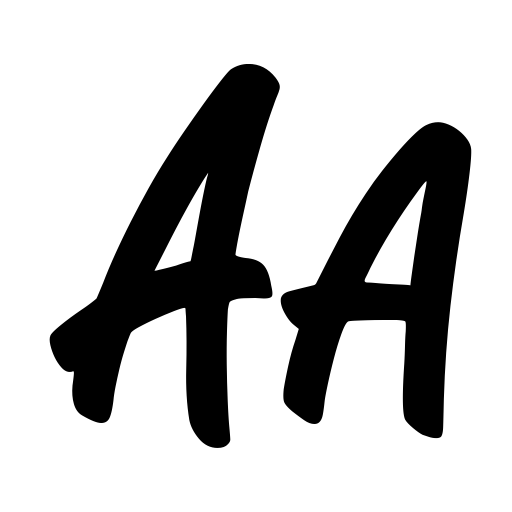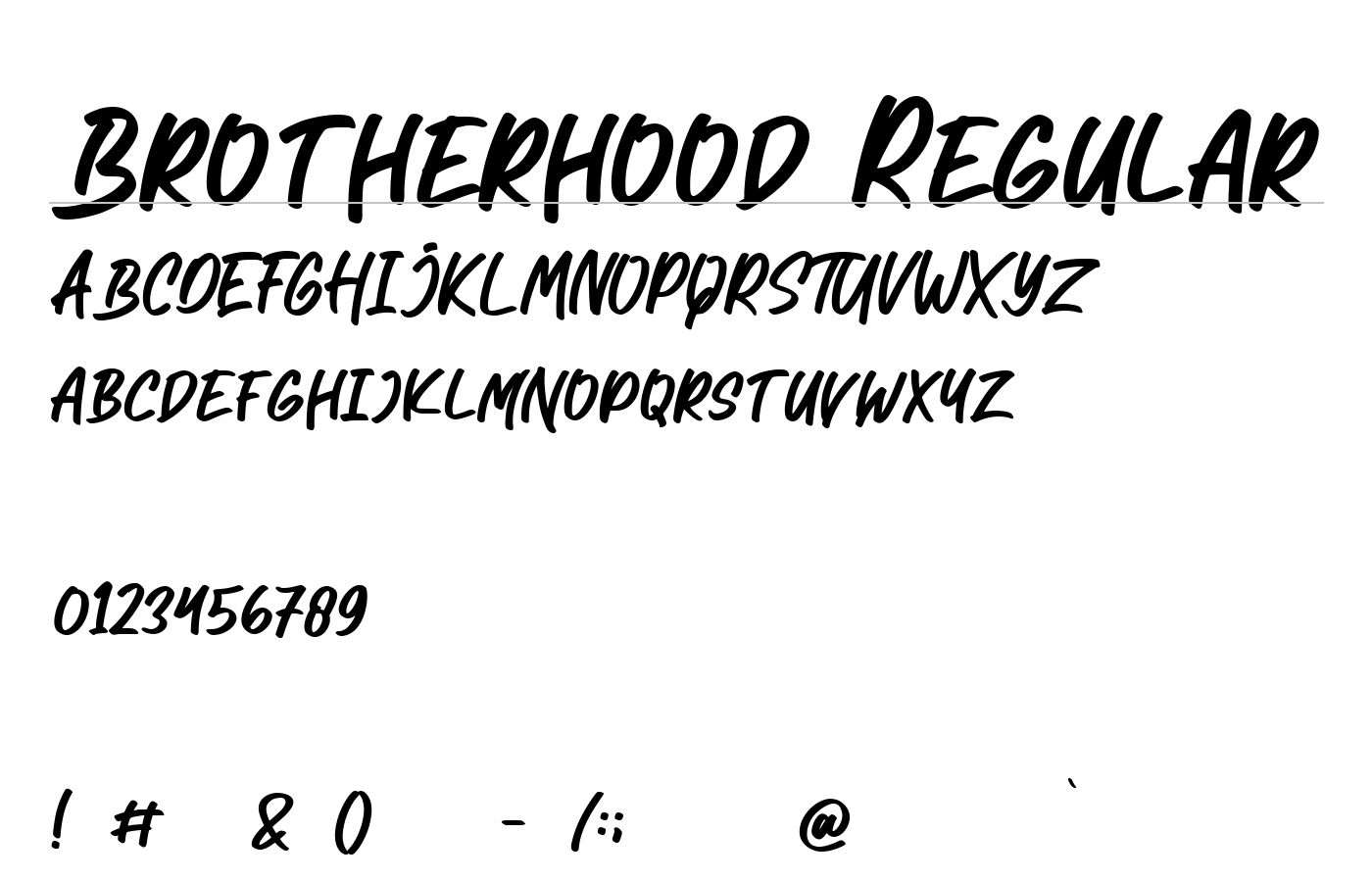
Brotherhood is a lively and bold handwritten script font that brings a dynamic and casual vibe to any design. With its energetic brush strokes, high contrast in weight, and slightly condensed style, it feels personal and approachable, making it perfect for projects that aim to convey warmth, creativity, and authenticity. This font shines in logos, posters, and branding where a spirited, friendly touch is desired.
Brotherhood Font
About Brotherhood Font
| Font family | Brotherhood Font |